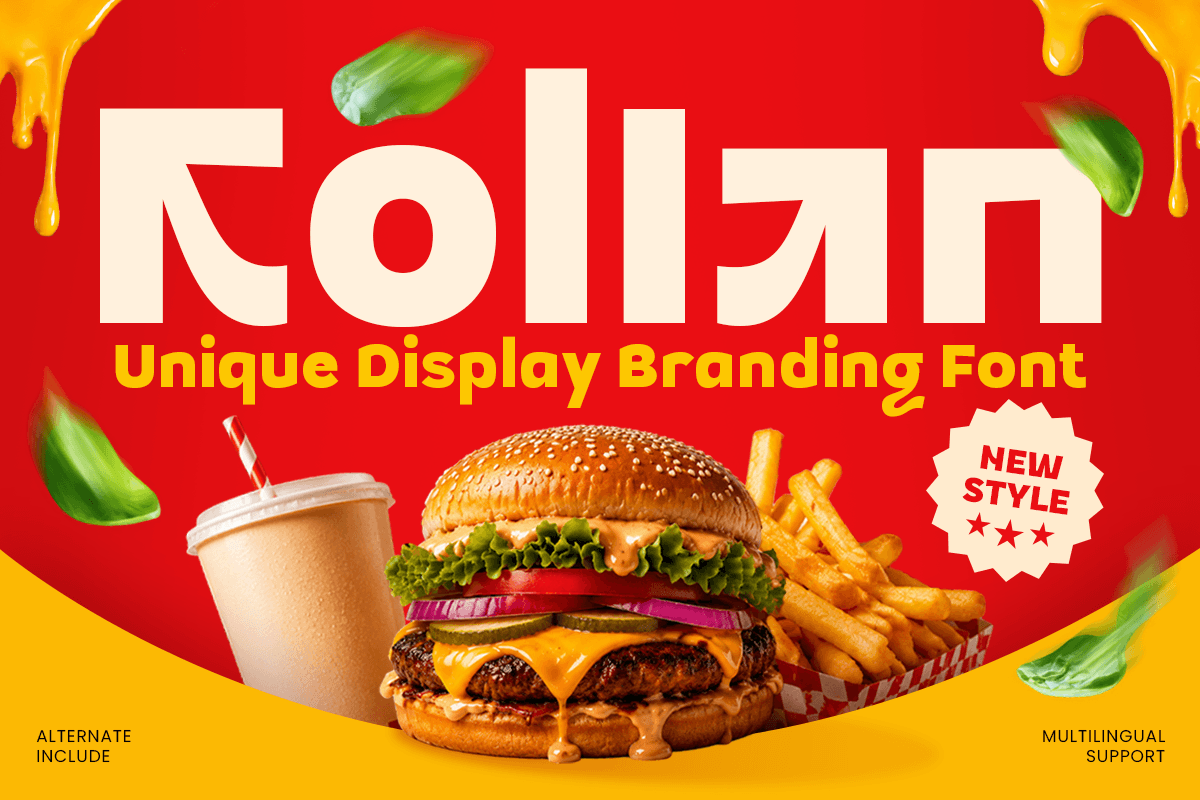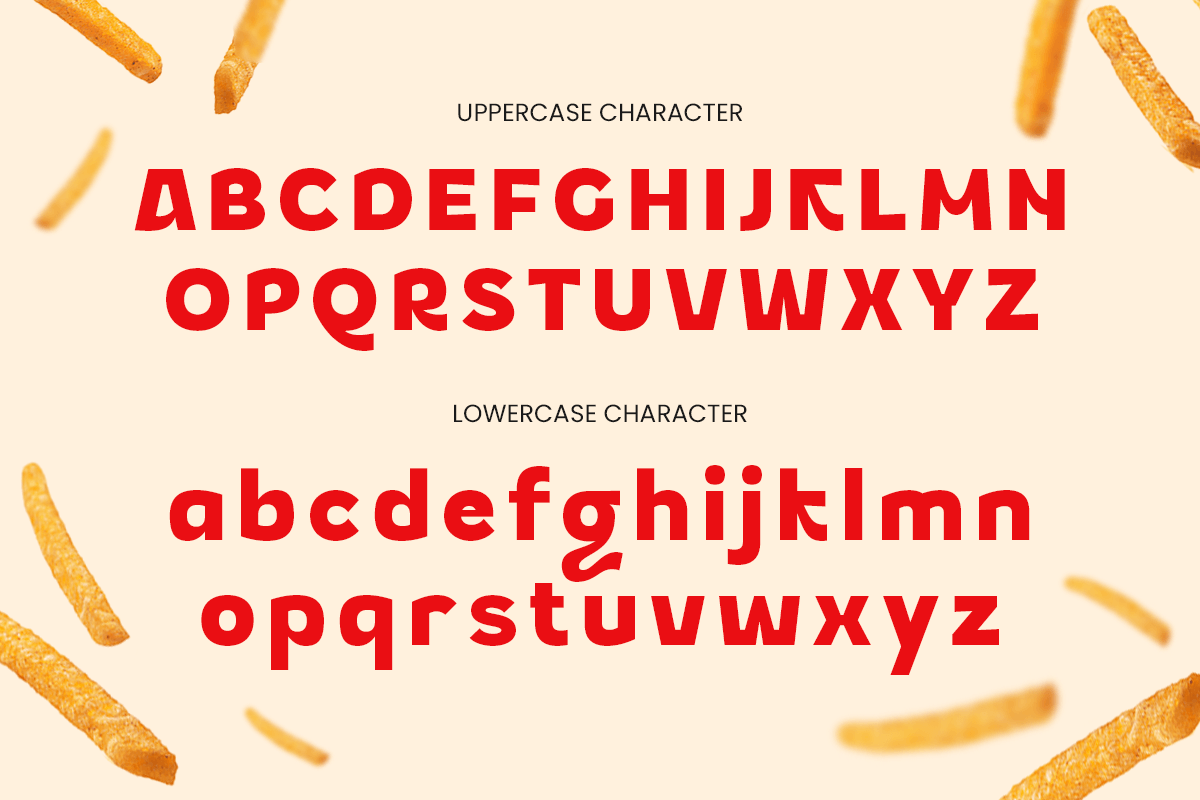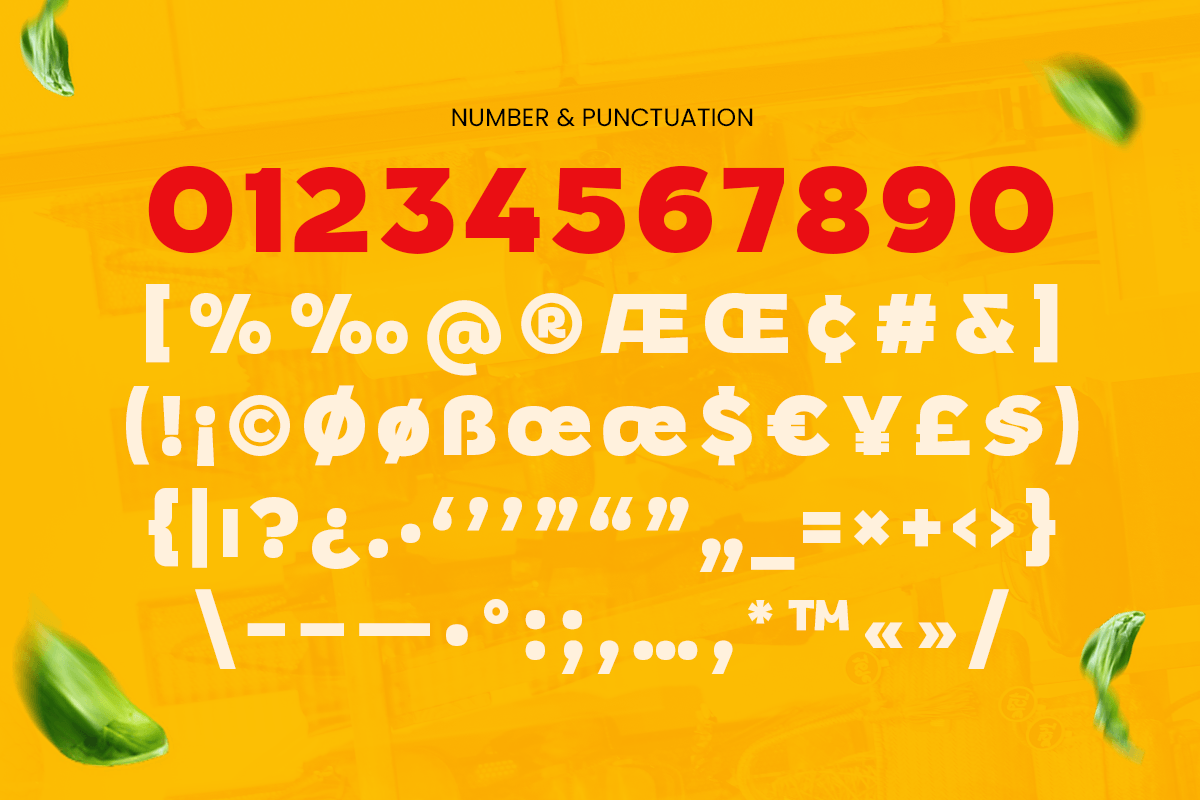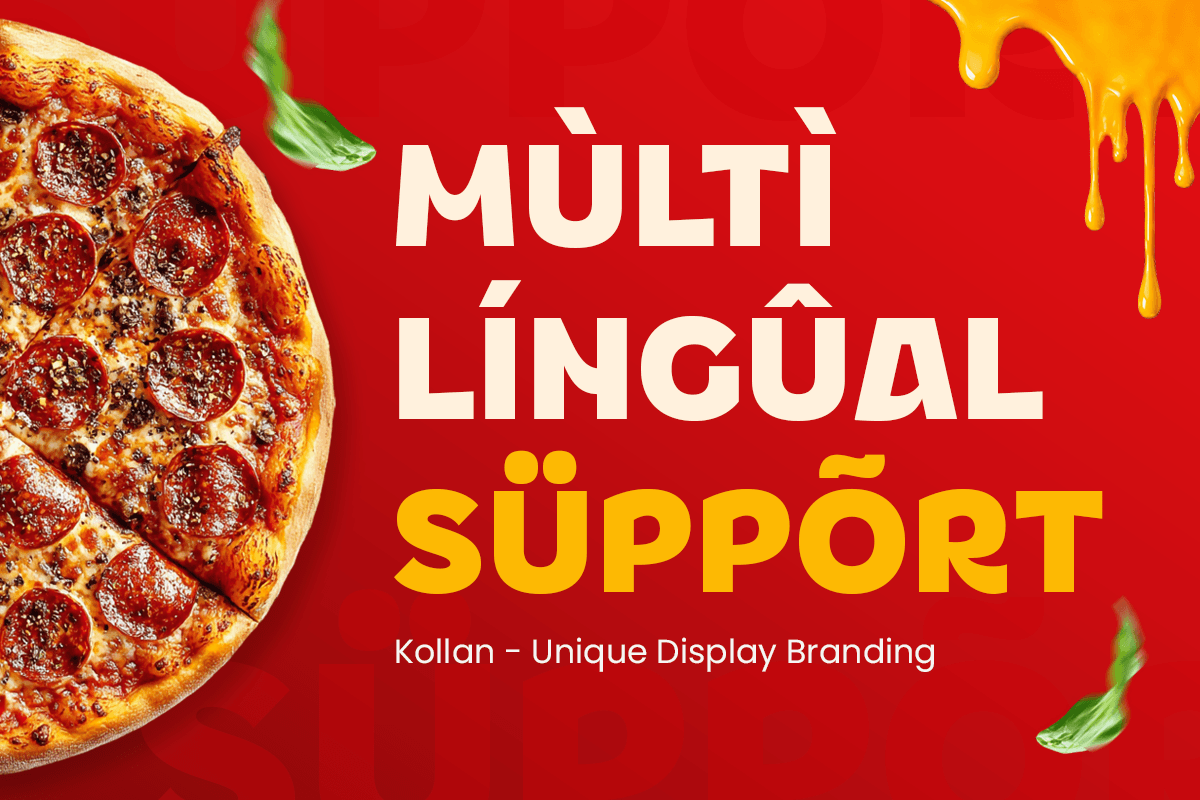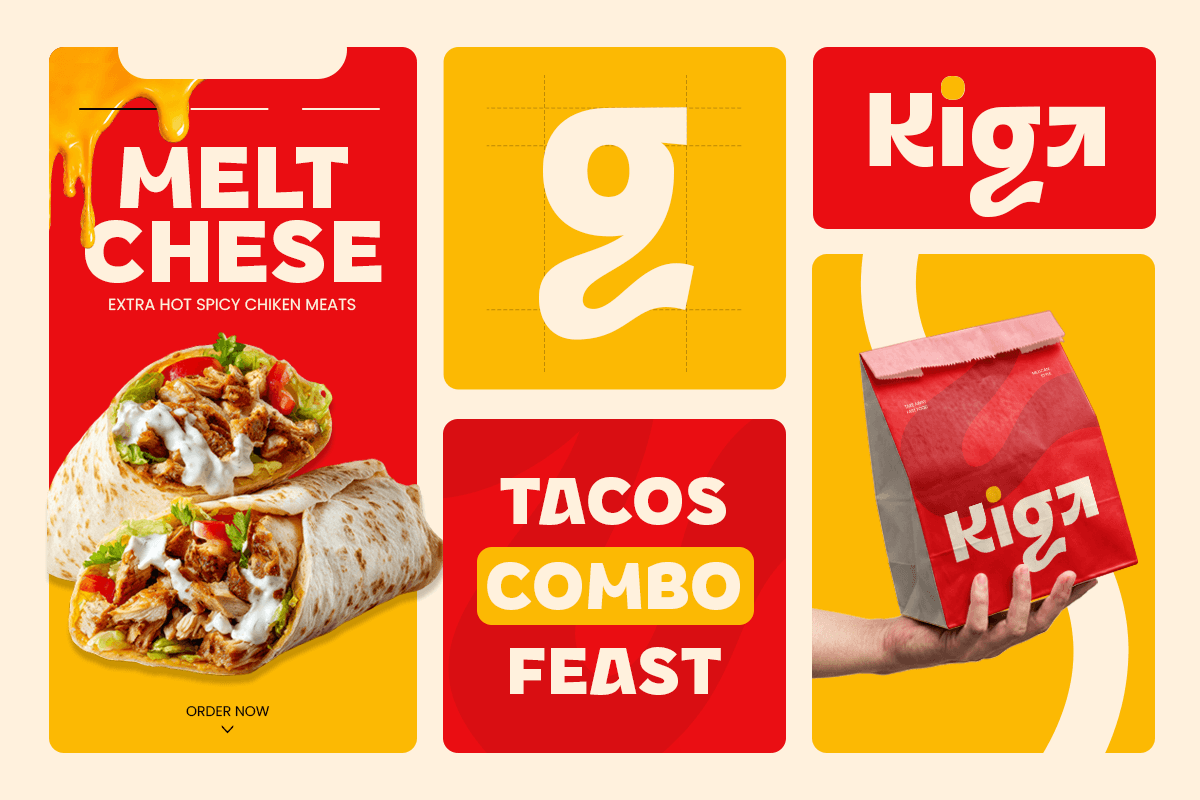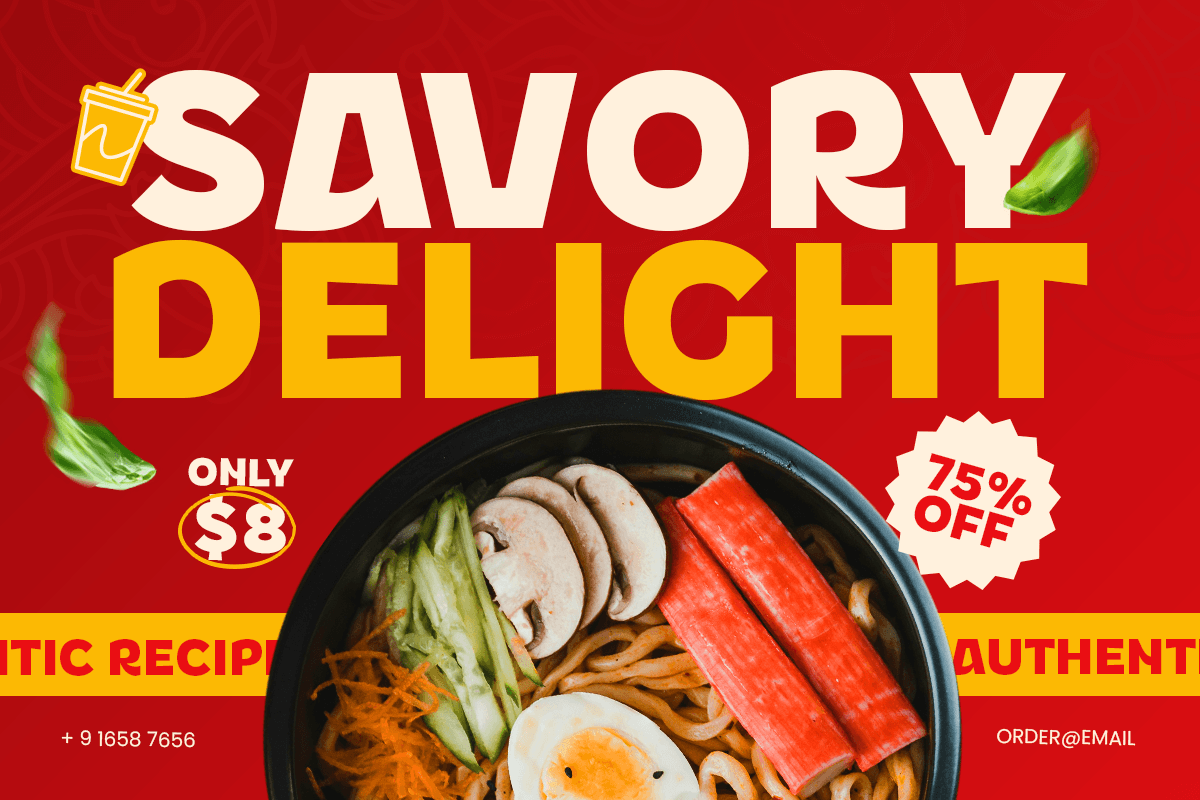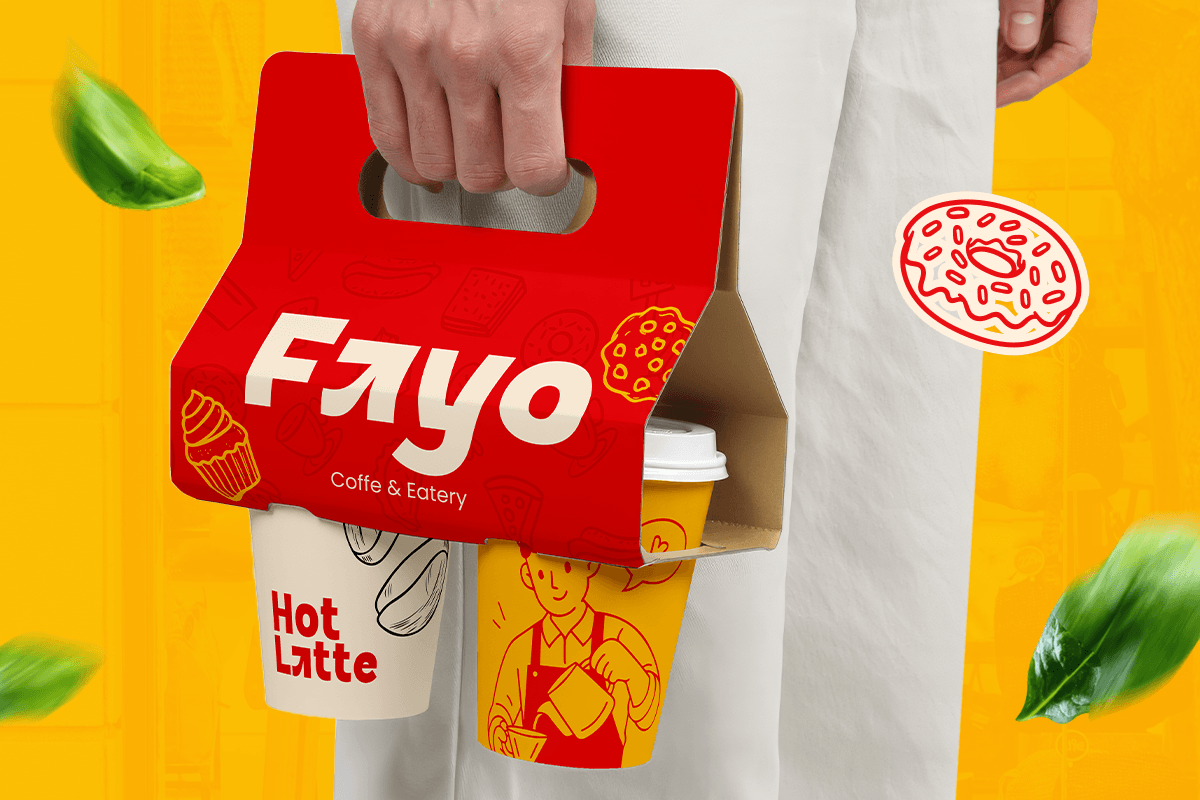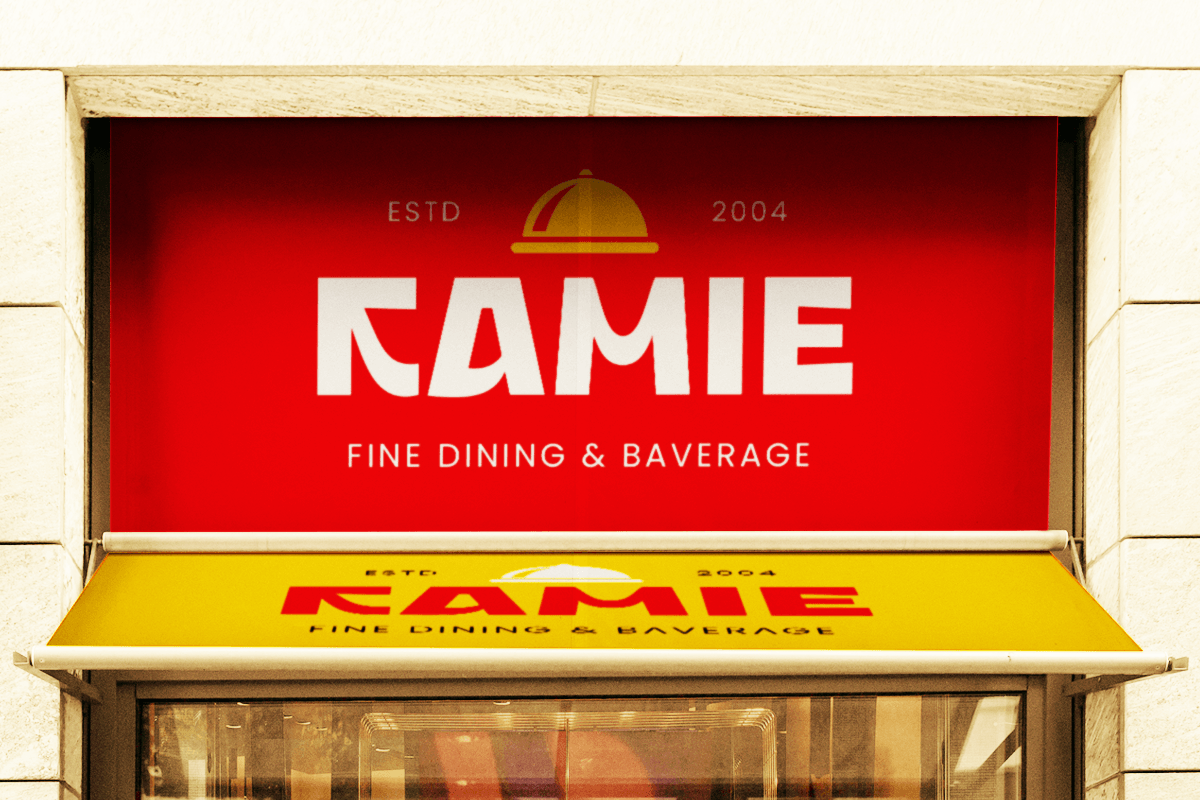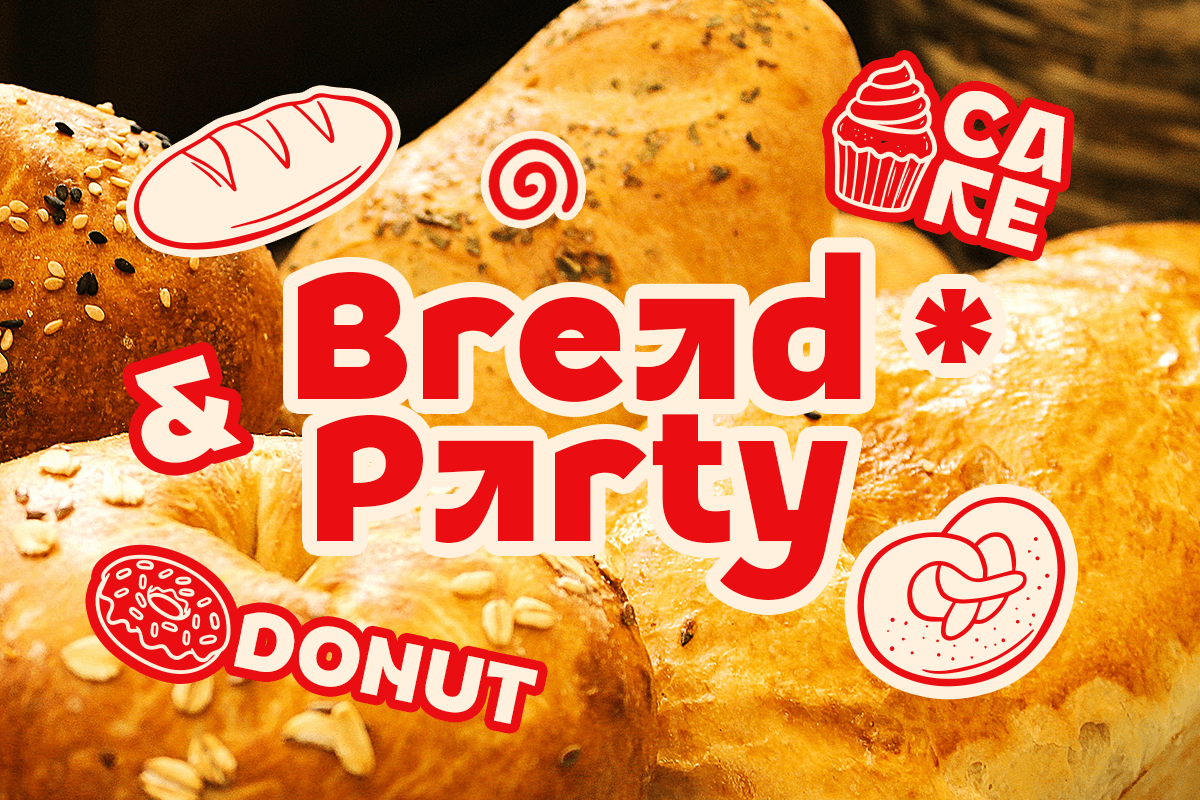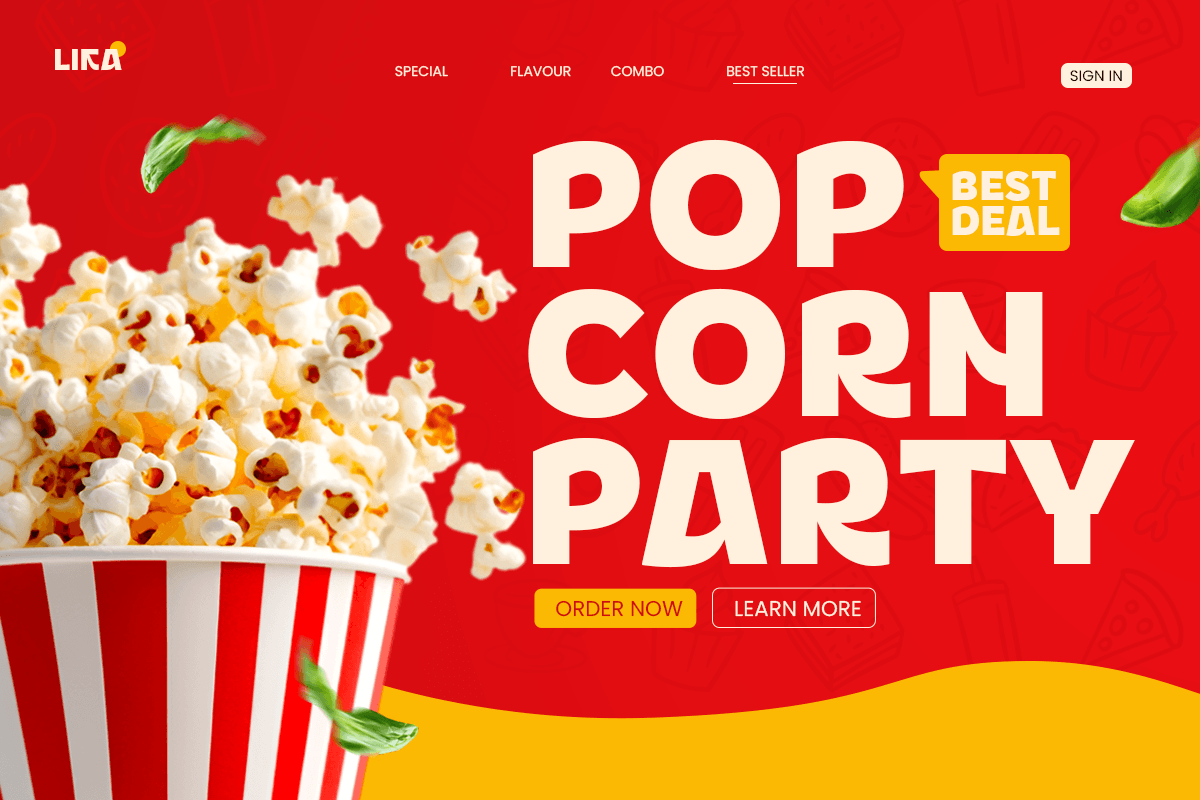
Kollan - Unique Branding Font
Kollan is a unique branding font created to give modern visual identities a distinctive and memorable personality. With expressive letterforms, balanced proportions, and a contemporary appearance, this unique branding font combines creative character with professional versatility.
Designed with brand-focused projects in mind, Kollan is ideal for logos, brand identity, packaging, posters, headlines, signage, editorial layouts, social media, and advertising. Its recognizable style helps wordmarks and promotional designs stand out while maintaining a polished, cohesive appearance.
Whether you're developing a creative studio identity, fashion label, lifestyle brand, product packaging, or modern campaign, Kollan brings individuality and confidence to every composition. It also works beautifully across web graphics, UI design, print materials, and digital marketing projects.
Kollan – Unique Branding Features
- Distinctive letterforms with a unique branding personality
- Modern style for memorable logos and visual identities
- Ideal for packaging, posters, headlines, and signage
- Great for fashion, lifestyle, creative, and corporate branding
- Includes uppercase, lowercase, numerals, and punctuation
- Suitable for both digital and print projects
- OpenType features for creative typographic flexibility
- Works well for social media, editorial, and advertising designs
Multilingual Support